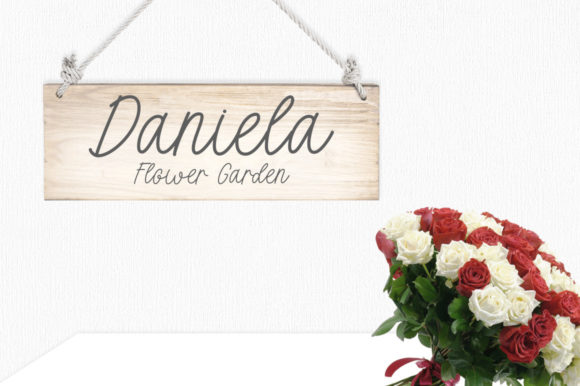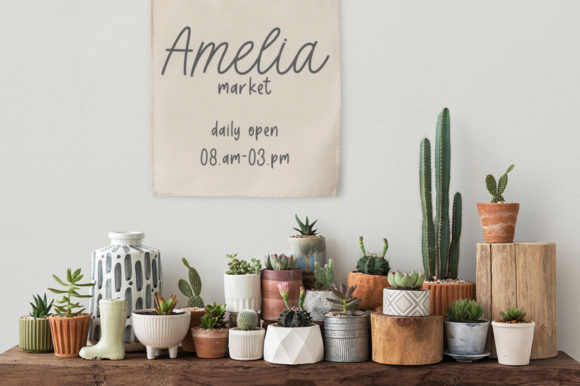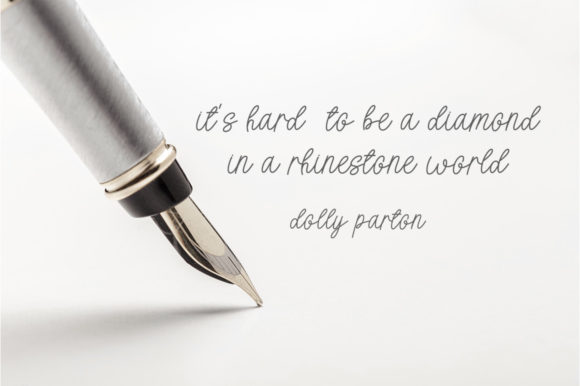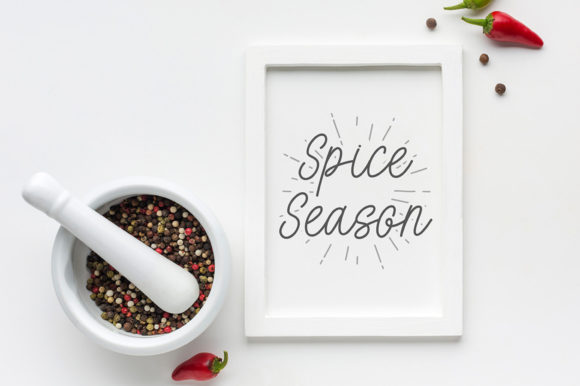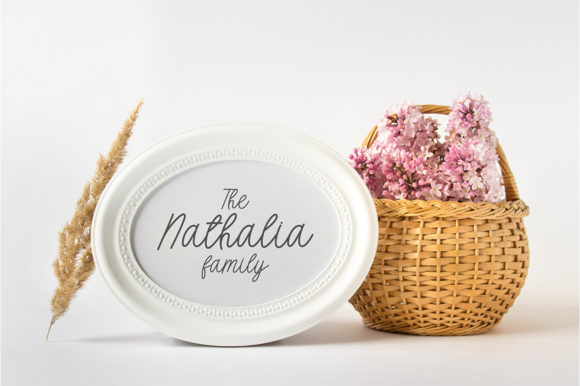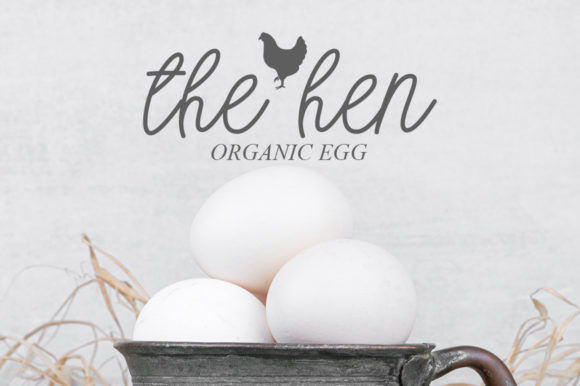
Introduction to Elisabeth Font
Elisabeth is a delicate and elegant handwritten font.
Its distinct and well balanced letters make this font a masterpiece Fall in love with its incredibly versatile style and use it to create spectacular designs.